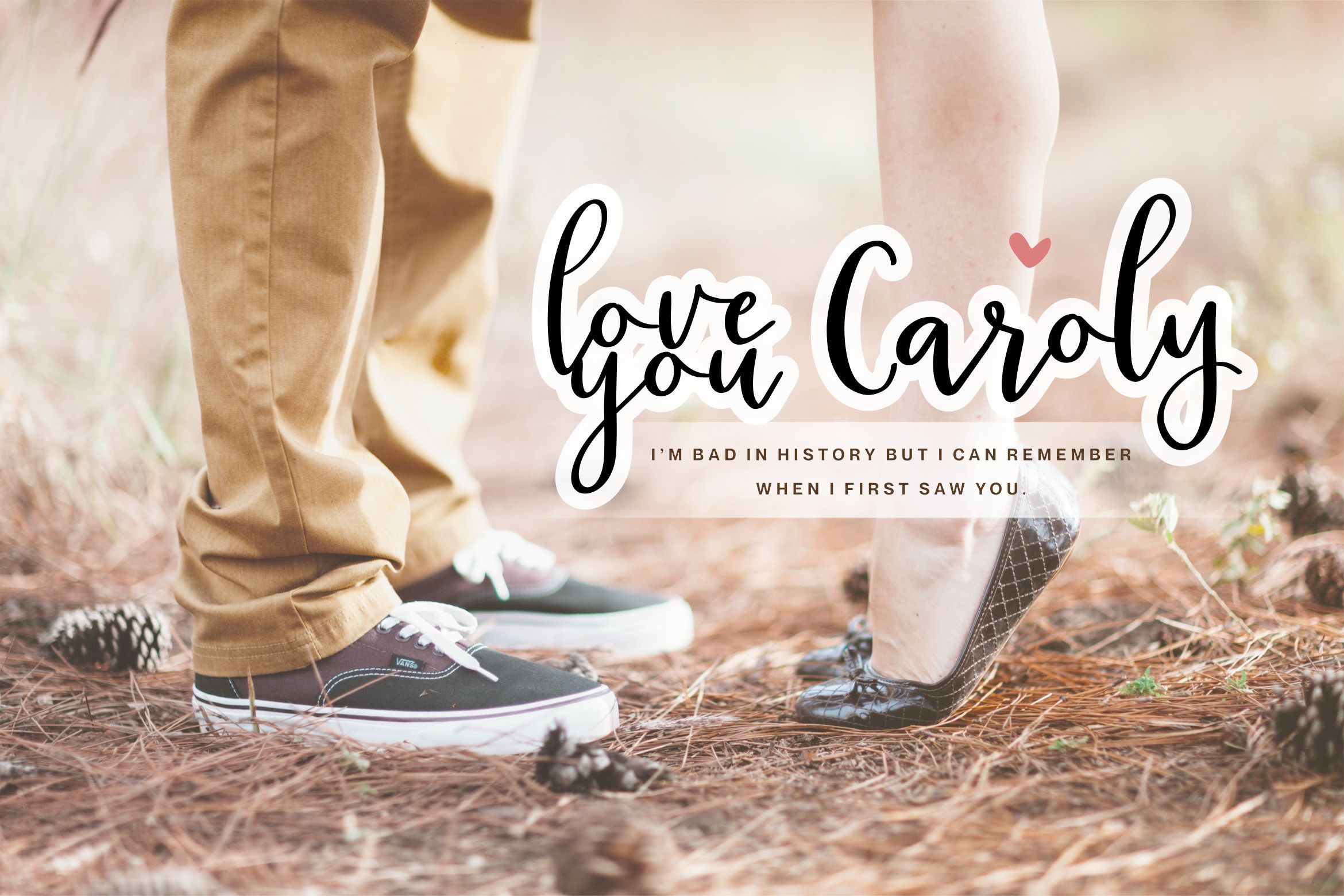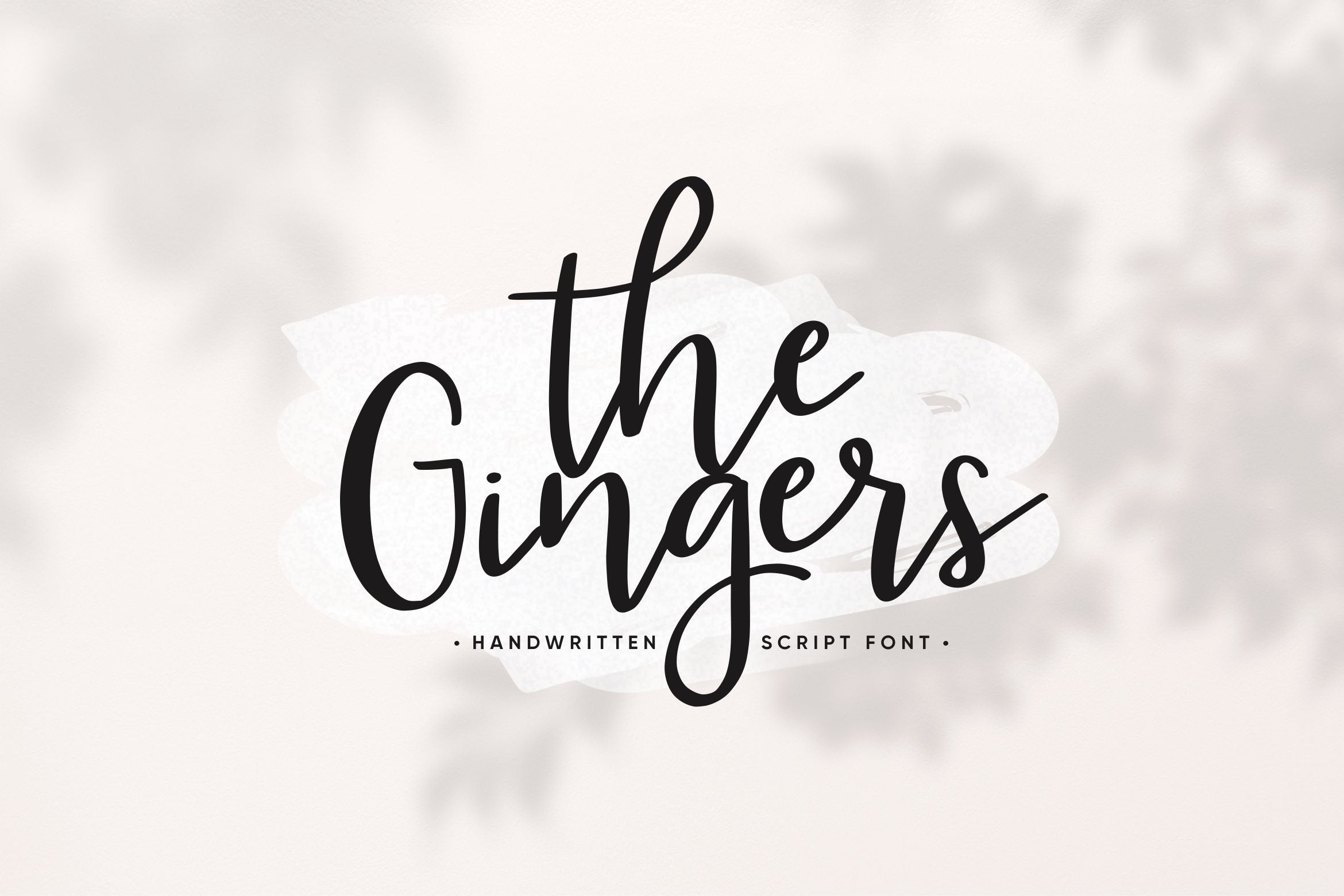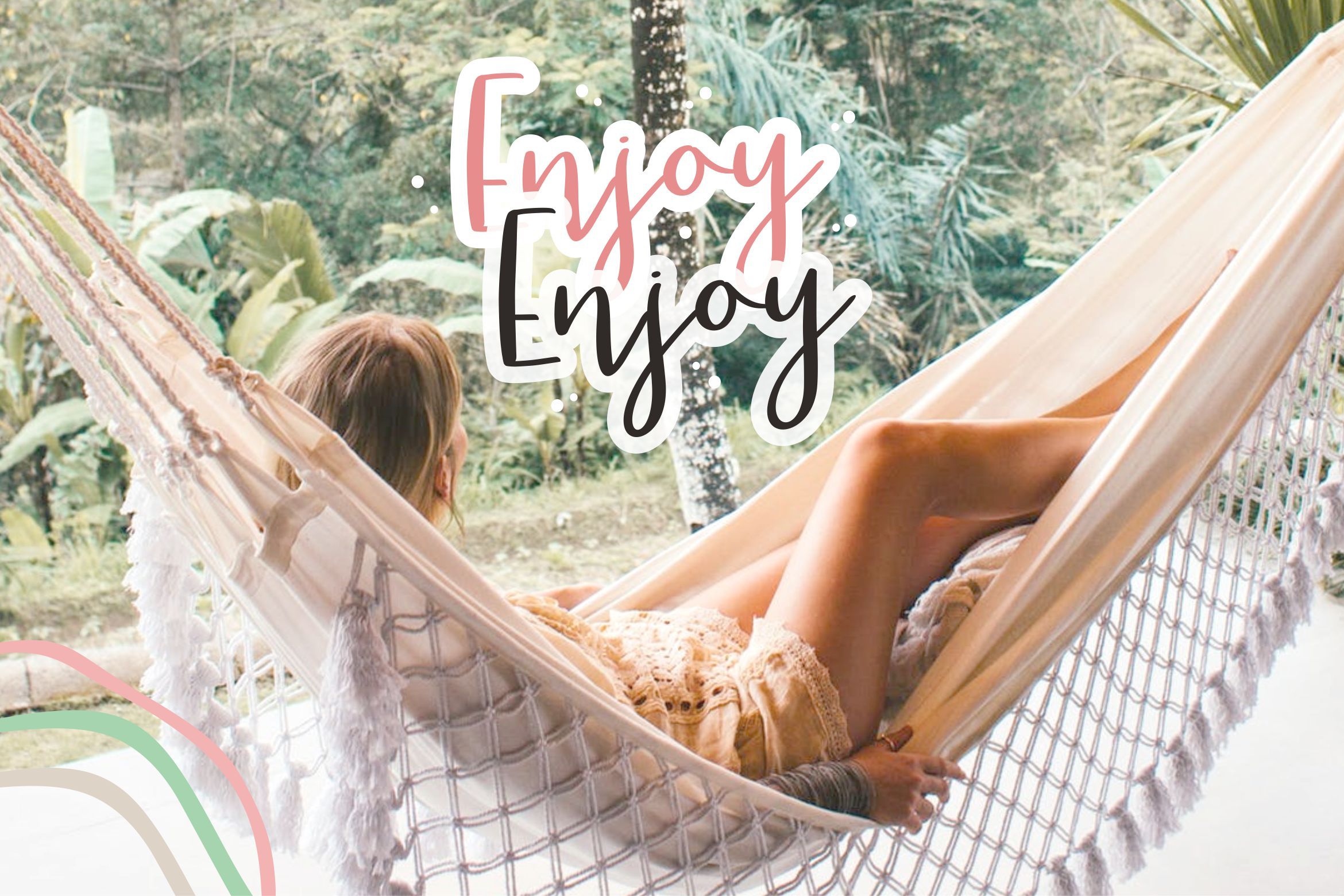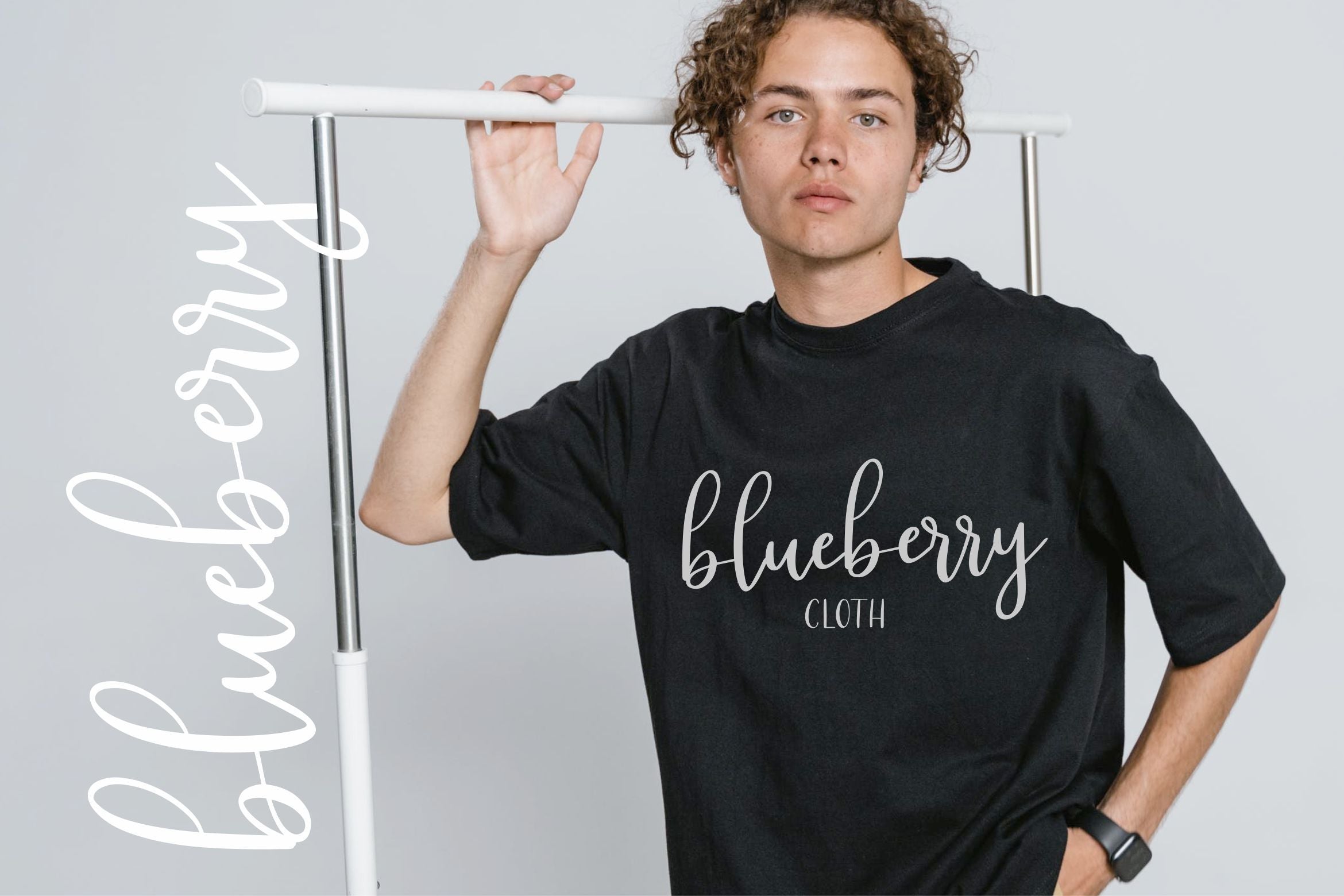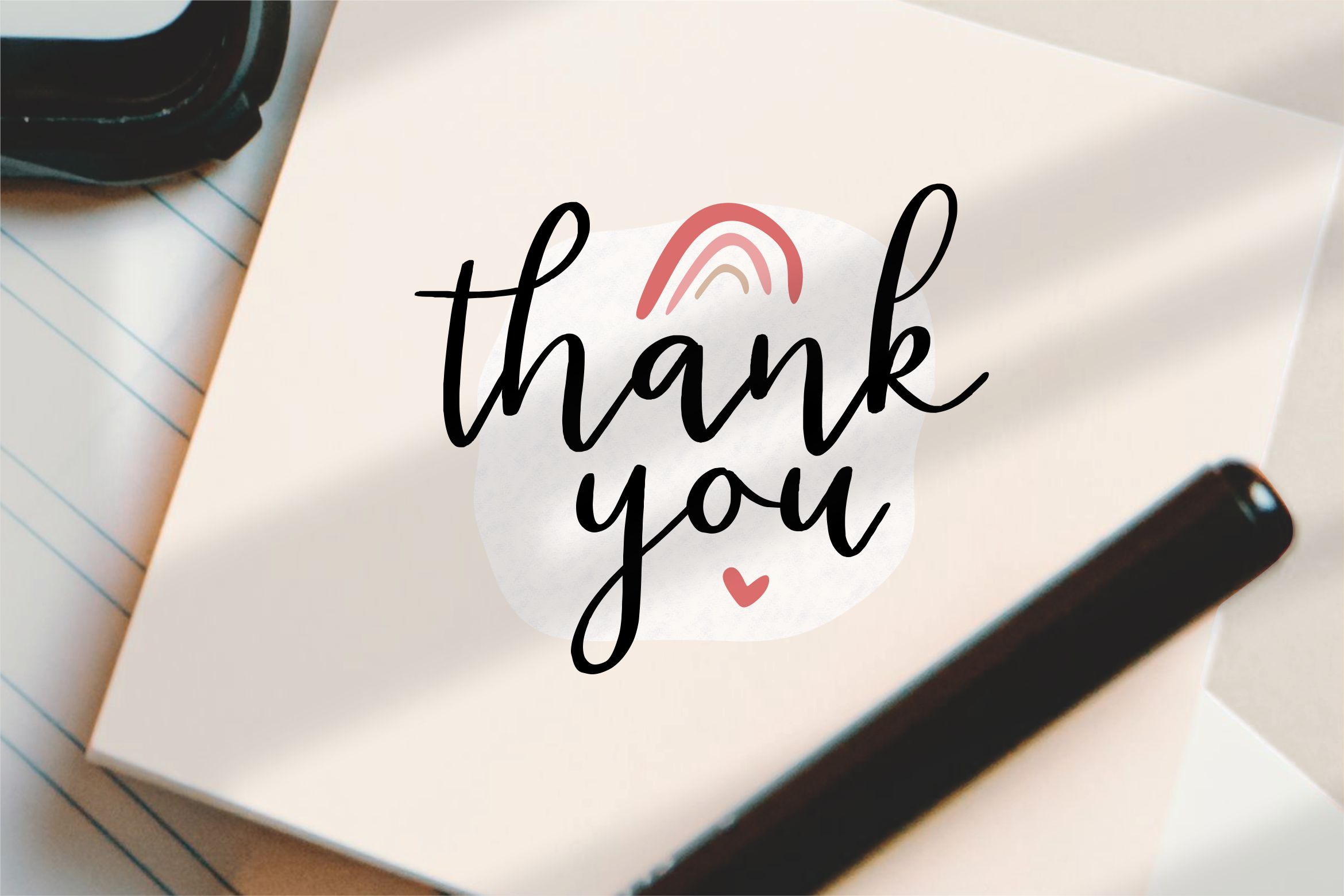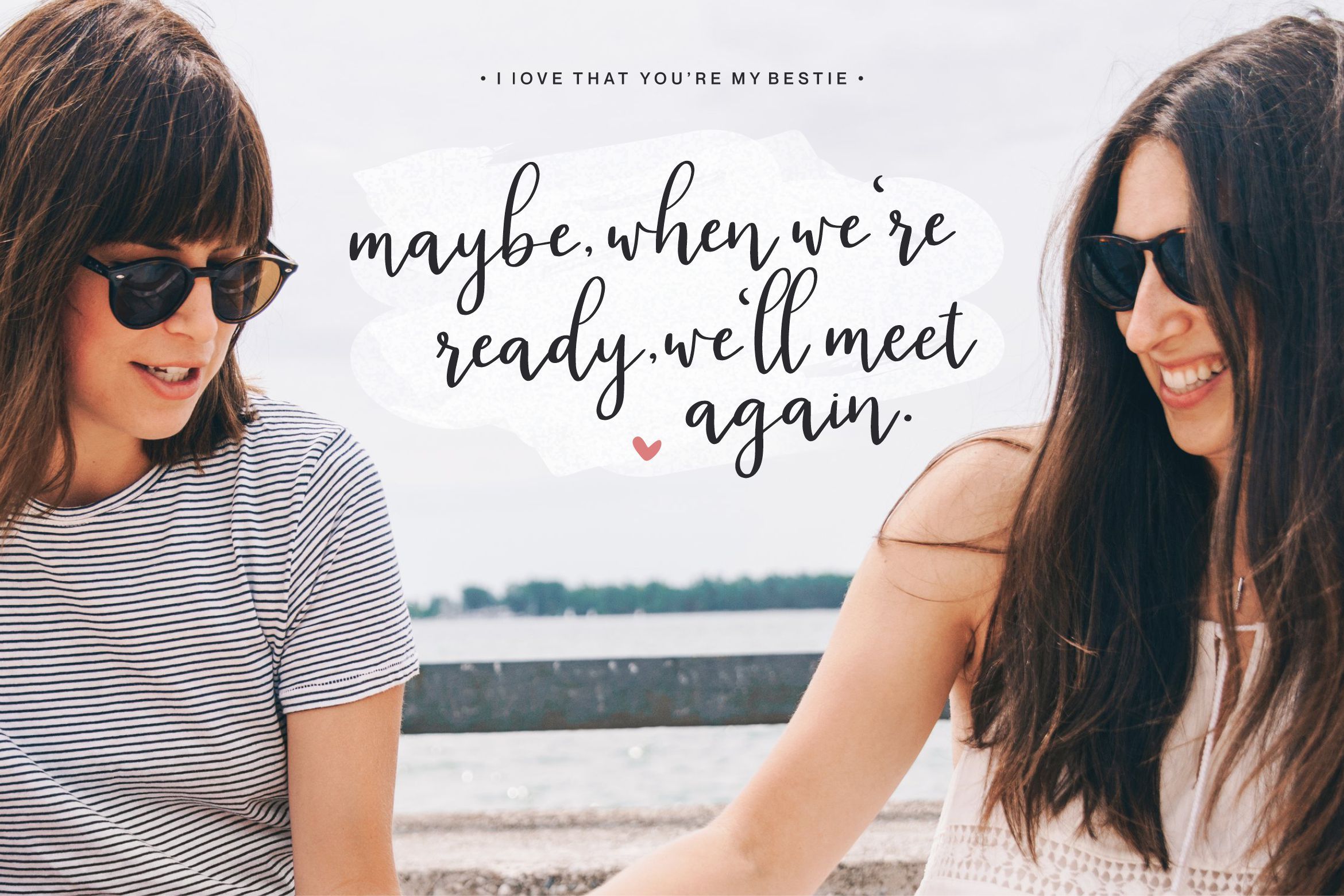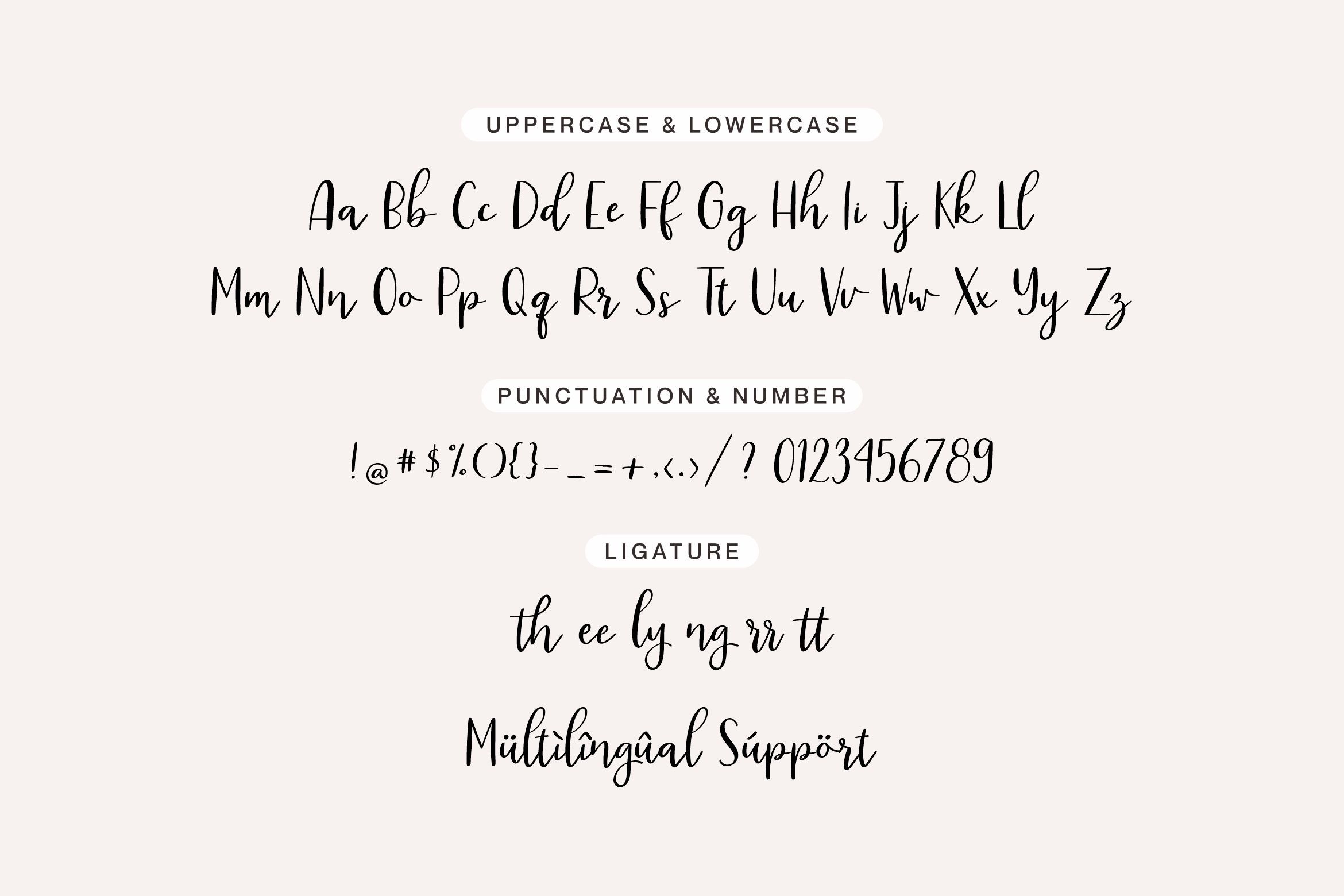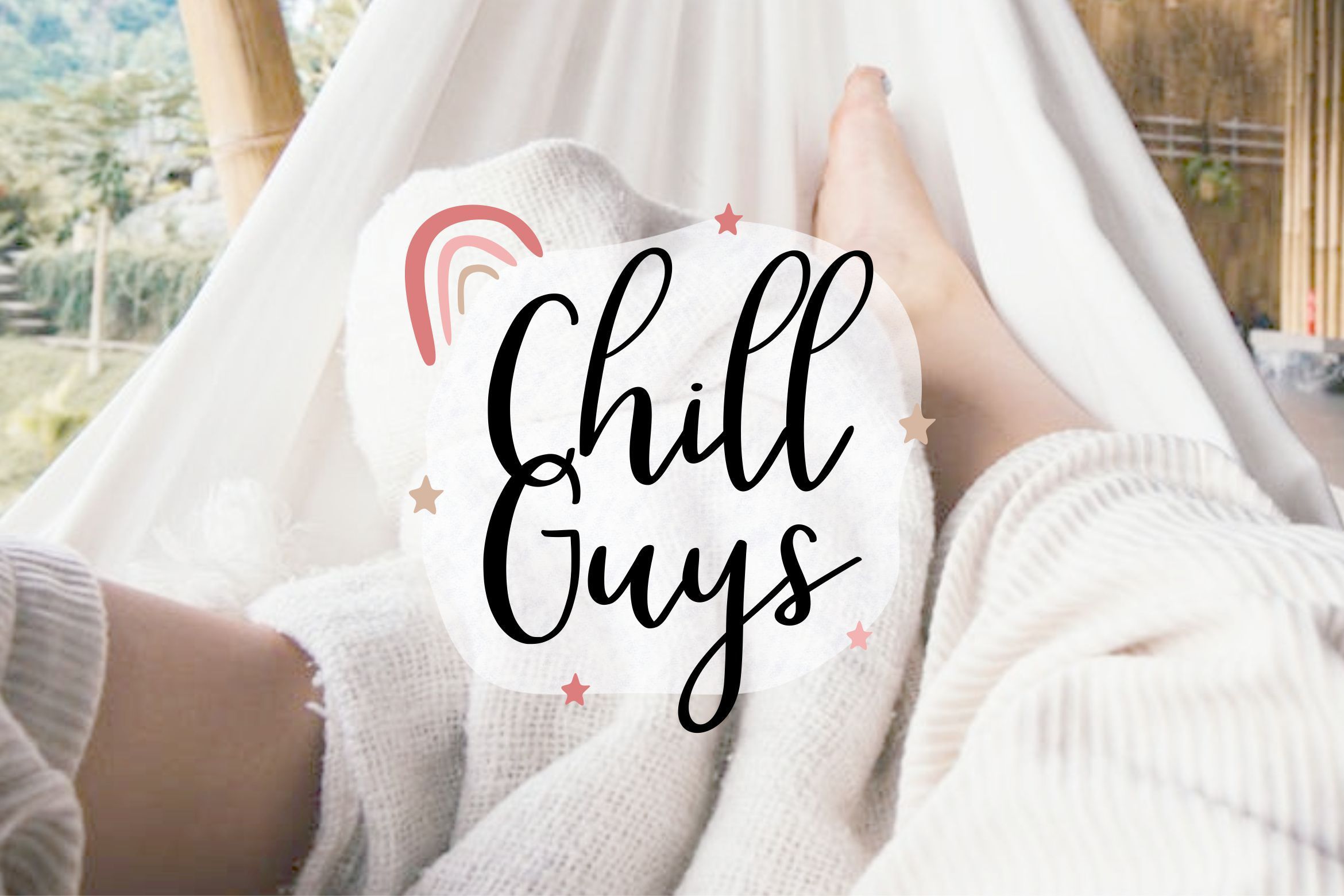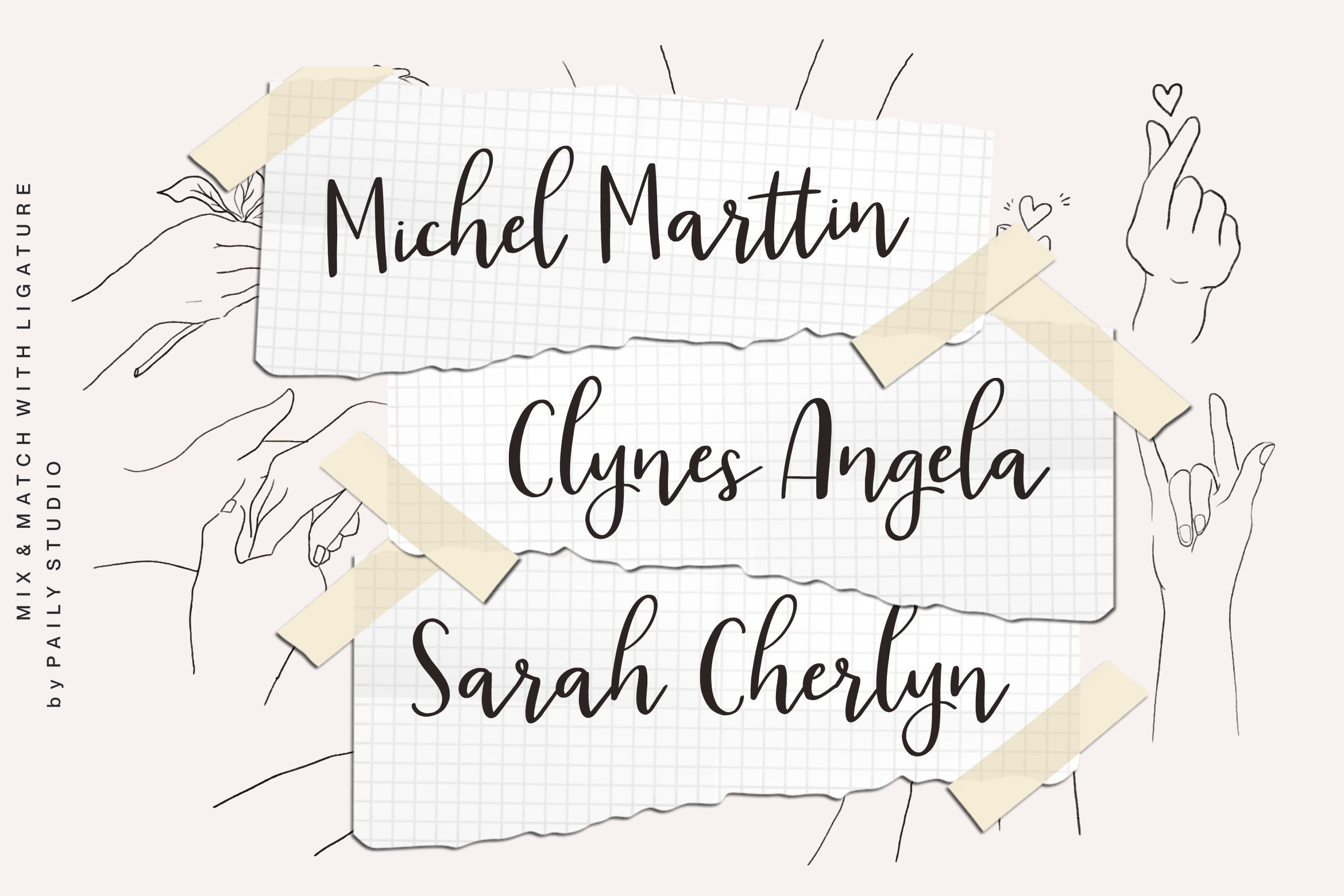
The Gingers Handwritten Script Font
Introducing by Paily Studio! The Gingers is a Handwritten Script Font. The Gingers is an elegant script font with a contemporary atmosphere and impeccable form, inspired by timeless classic calligraphy. Not too thin and not too thick, balanced and varied, this font was designed to enhance the beauty of your projects. File Included : OTF, TTF, WOFF and a range of multilingual support. Please follow instagram @paily_studio Thanks!